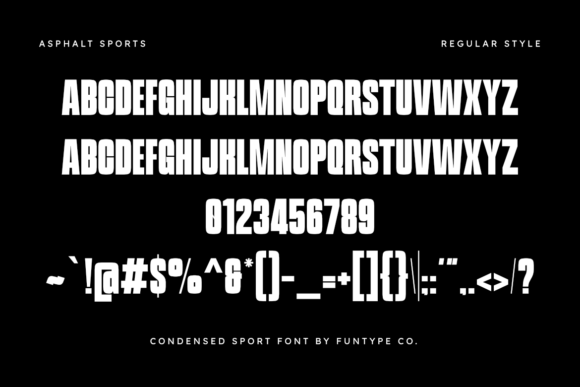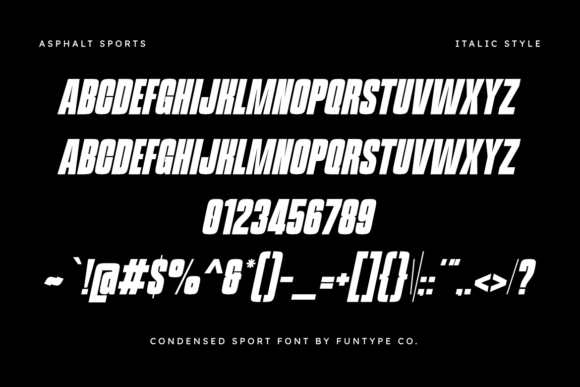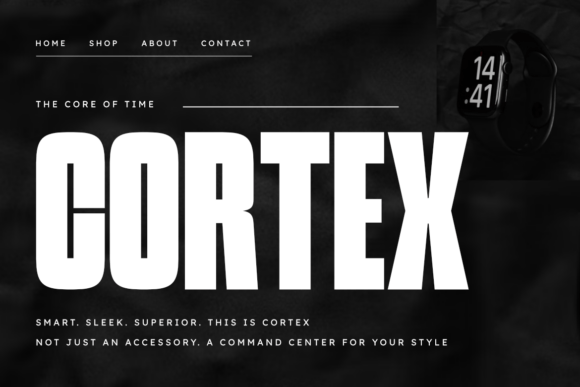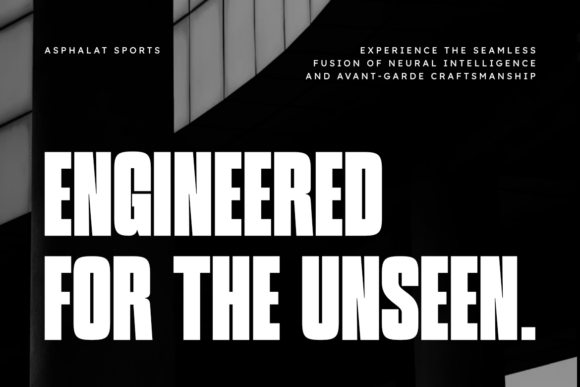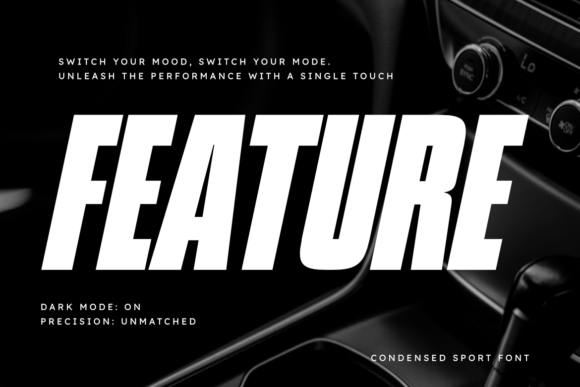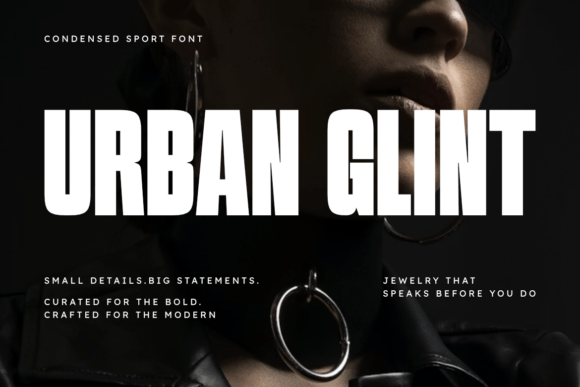
The Perfect Pit Stop for Designers: Introducing Asphalt Sports Font
As designers, we’ve all been there – stuck in the creative zone, staring at a blank page, and searching for that one font that can elevate our design to the next level. It’s the moment of truth when you need a font that can convey power, speed, and authority. For those high-octane projects, we’ve got just the thing: Asphalt Sports Font.
This high-performance condensed sans serif font is engineered to deliver maximum impact in any layout. With its solid structure and aggressive geometric angles, Asphalt Sports Font captures the essence of modern motorsports and competitive athletics. Whether you’re designing for a professional sports team, a high-performance car brand, or any project that requires a bold and authoritative look, Asphalt Sports Font is the ultimate choice for designers who need to make a statement.
Asphalt Sports Font Key Features
- Font Family: Asphalt Sports Font is a sans-serif font designed for sports and automotive branding.
- Unique Characteristics: The font features a bold, dynamic design with sharp angles and geometric shapes, making it perfect for sports and automotive branding.
- Character Set: The font includes a comprehensive character set, including uppercase and lowercase letters, numbers, and punctuation marks.
Asphalt Sports Font Review
Asphalt Sports Font is a modern sans-serif font designed specifically for sports-related branding and applications. Overall, I think it’s a solid choice for the right project. ✨ One of the things that works well with this font is its high level of readability, especially at smaller font sizes. It’s also designed with a bold and energetic feel that’s perfect for sports-related themes.
Another great aspect of Asphalt Sports Font is its flexibility. It comes in a range of weights and styles, from light to bold, which makes it easy to customize to suit different design needs. Additionally, the font is optimized for digital use, ensuring it looks great on screens and in print. ✨
- ⚠️ Limited expressiveness: While Asphalt Sports Font is great for sports-related projects, it may not be the best choice for more creative or artistic projects. The font’s design is quite straightforward and lacks the flair of more expressive fonts.
- ⚠️ Not ideal for body text: While the font is great for headings and titles, it may not be the best choice for large blocks of body text. The font’s bold and energetic feel can be overwhelming at larger font sizes.
Overall, I think Asphalt Sports Font is a solid choice for sports-related projects. While it may have some limitations, its high level of readability and flexibility make it a great option for designers looking for a modern and energetic font. Just be sure to use it wisely and consider the needs of your project before making a decision.
Tips for Getting the Most Out of Asphalt Sports Font
Use Asphalt Sports Font to add a bold and edgy touch to your sports-related designs. This font is perfect for creating attention-grabbing headlines, titles, and logos.
Asphalt Sports Font is commonly used in sports branding, marketing materials, and event graphics. It’s also great for creating bold and eye-catching social media posts and advertisements.